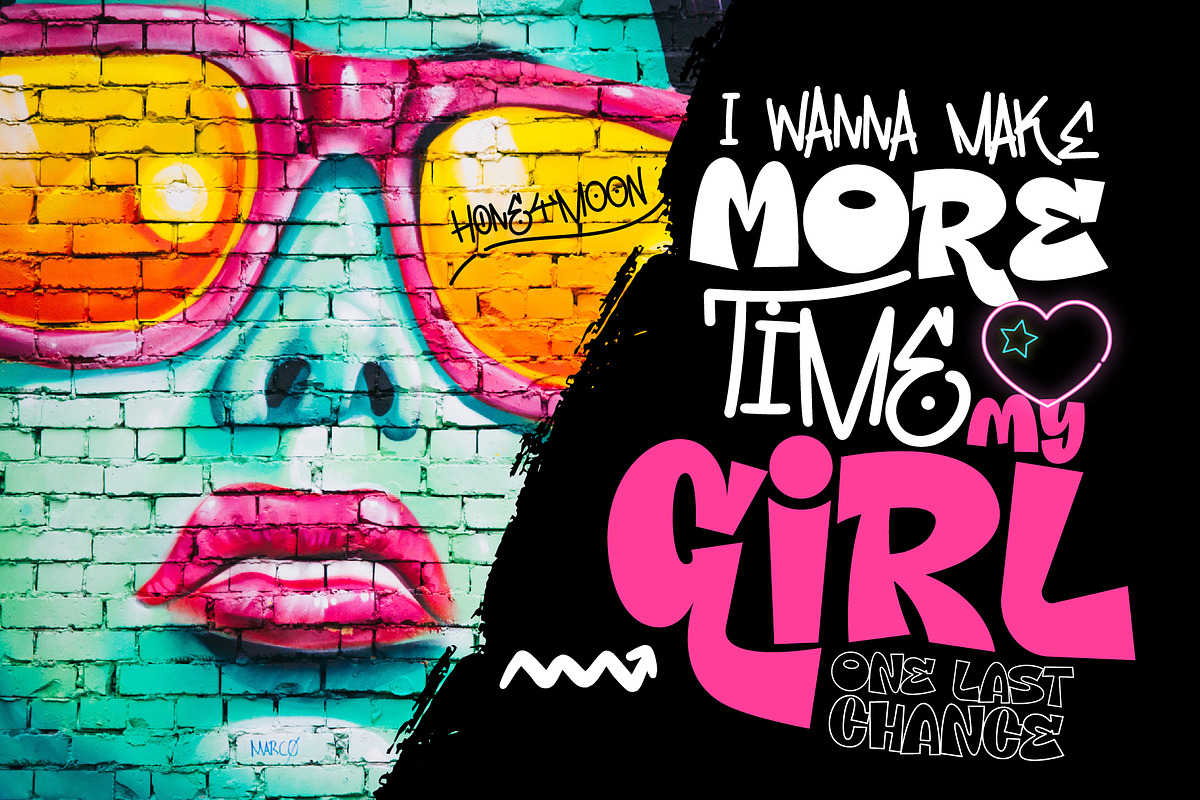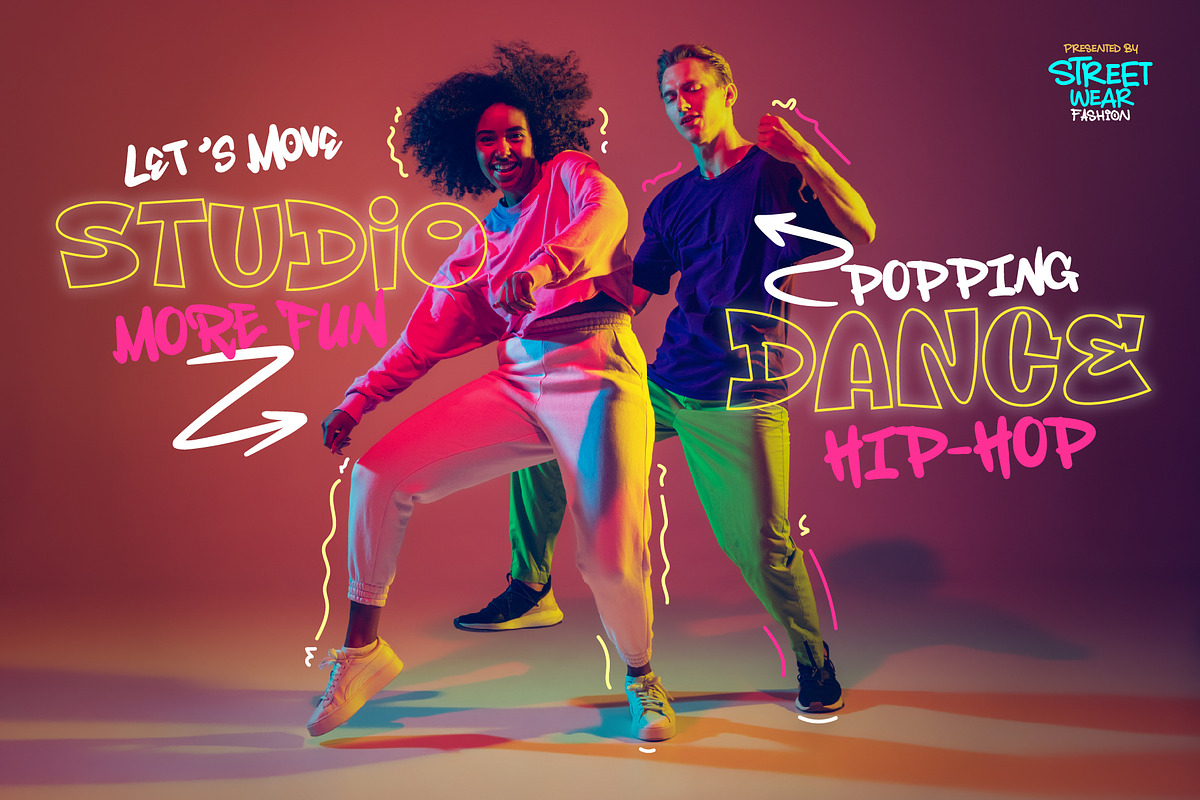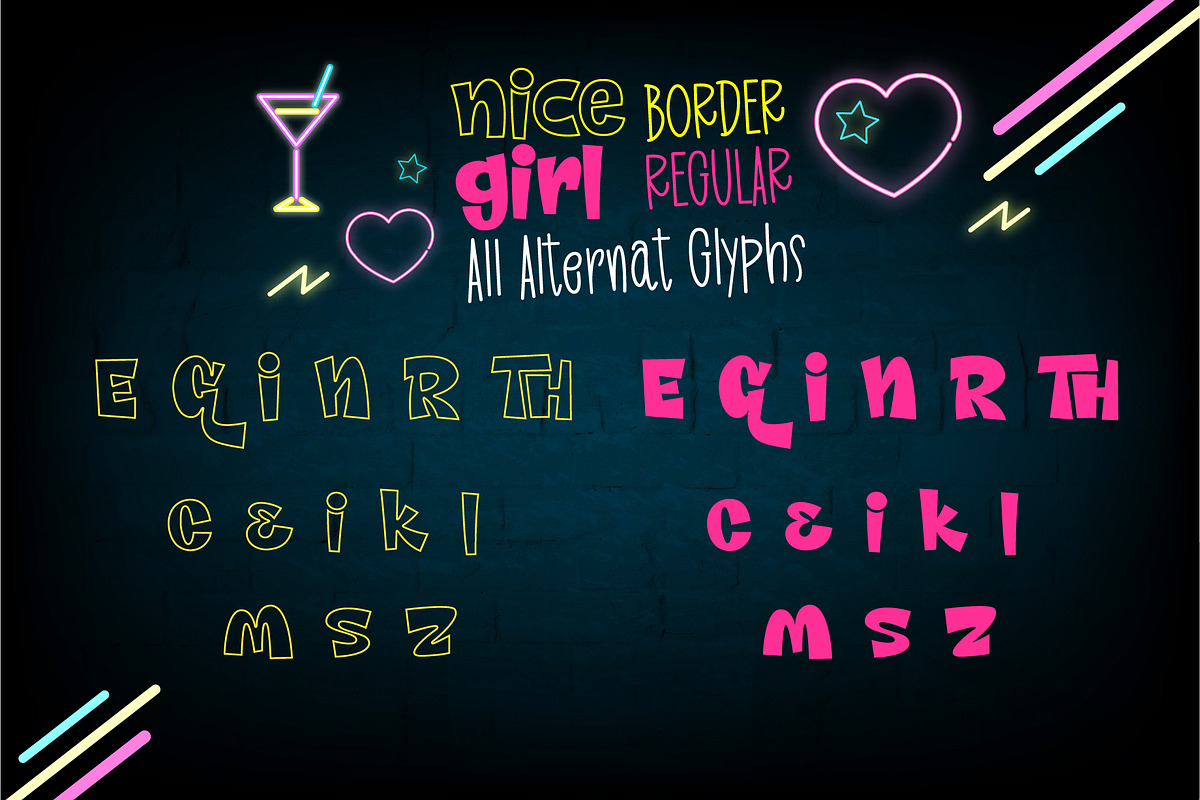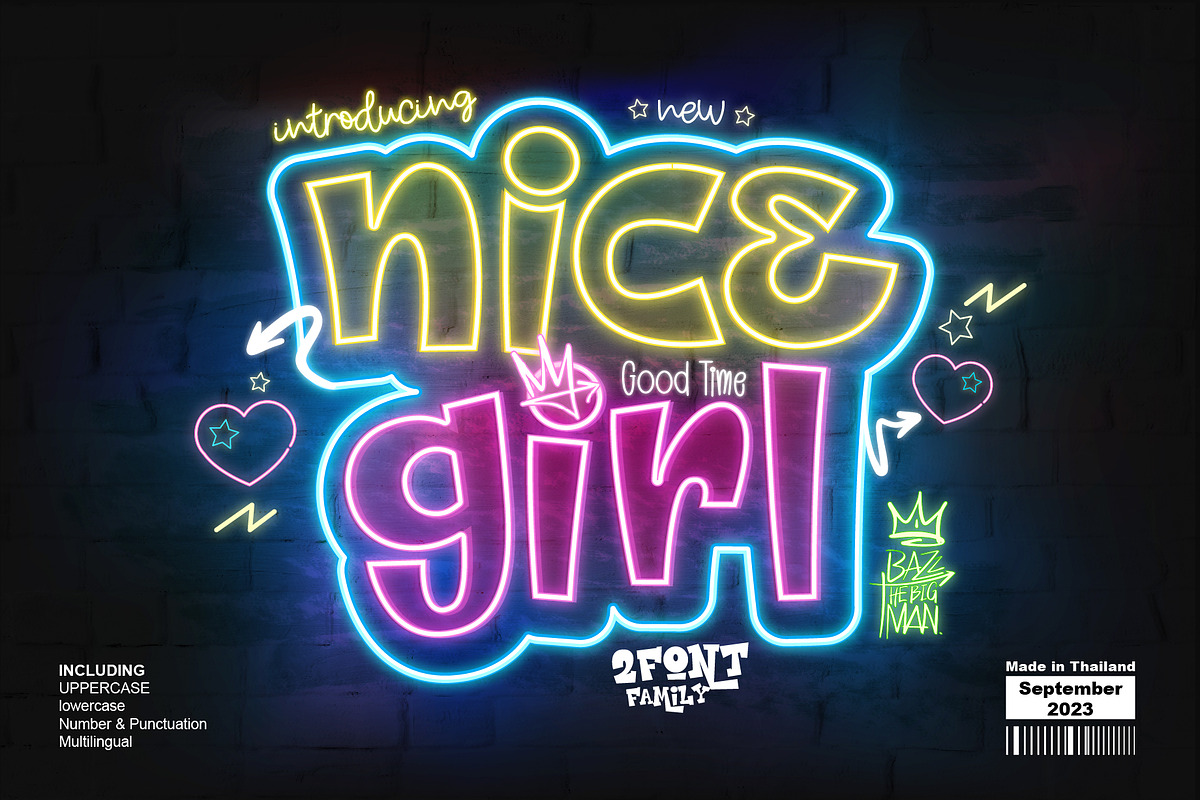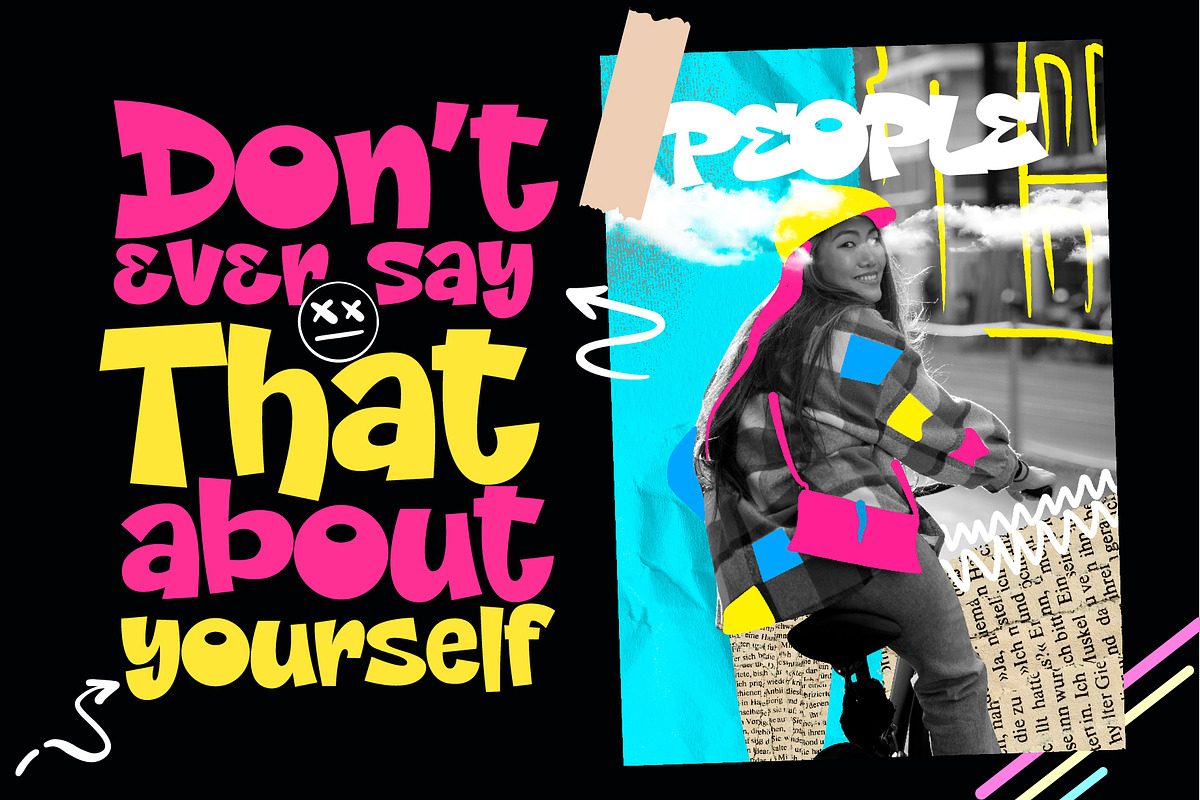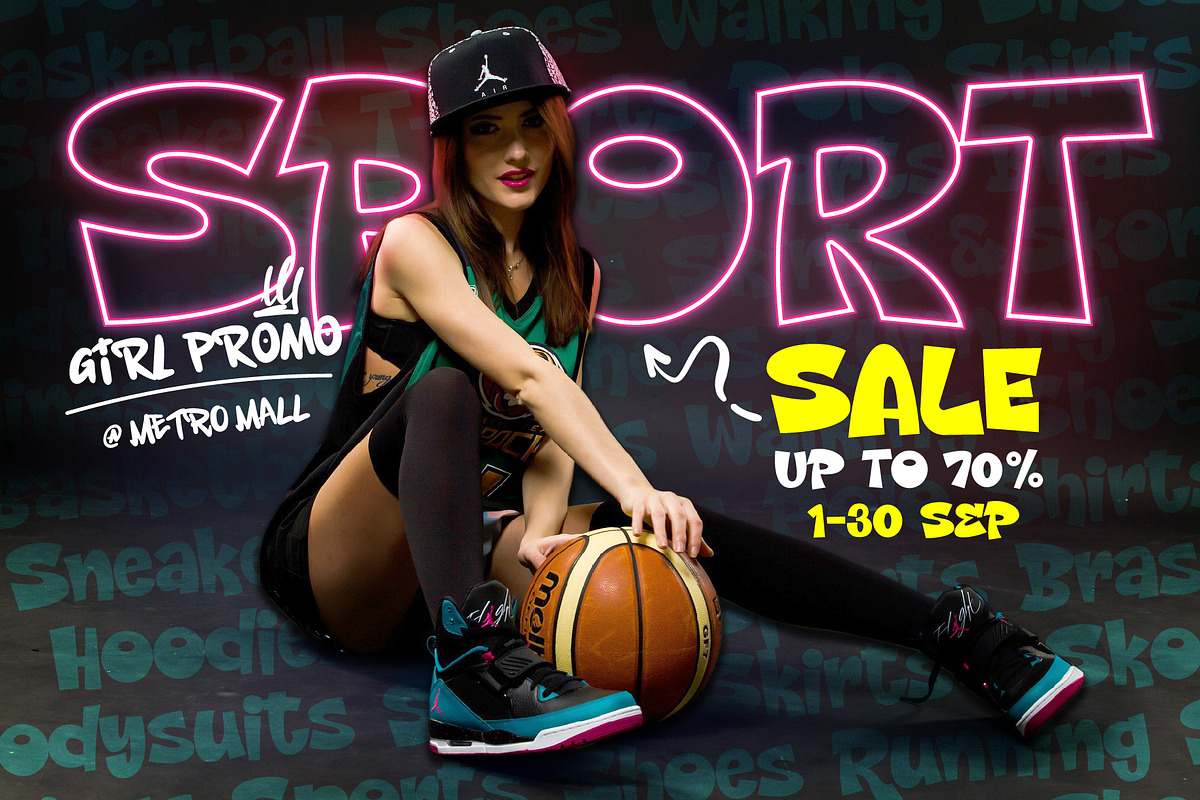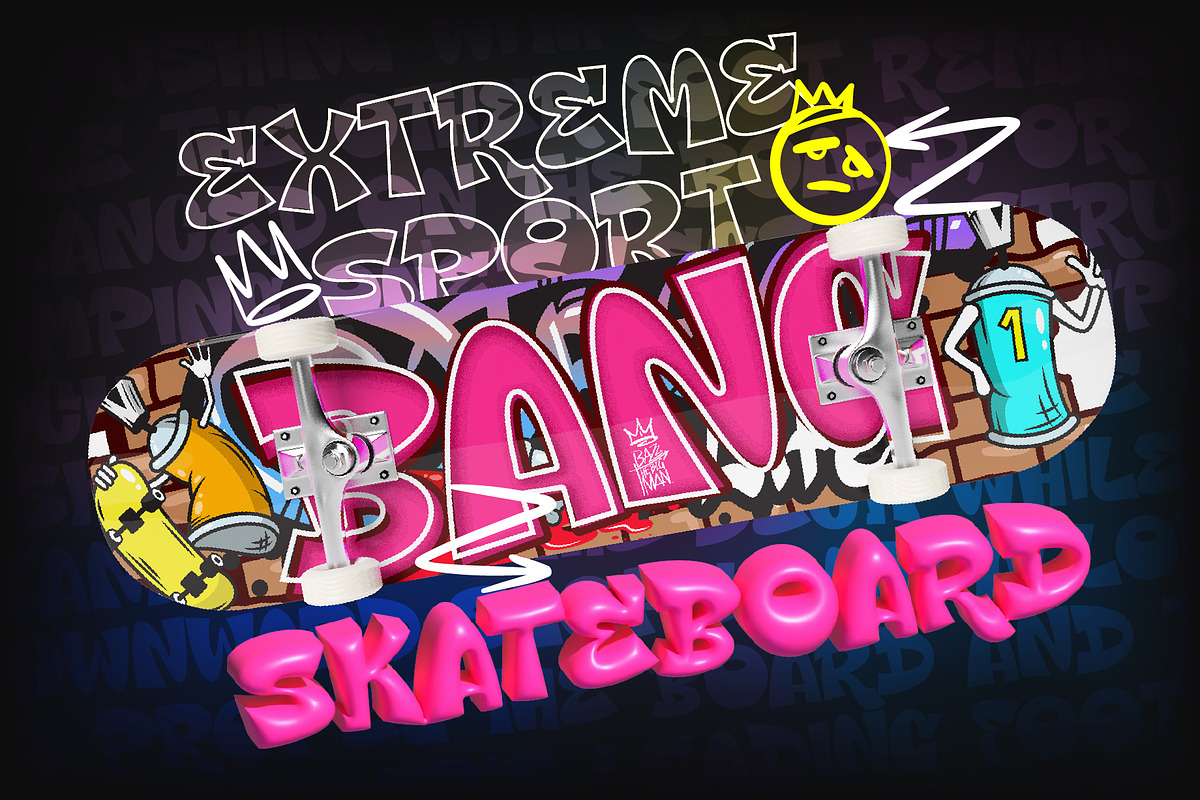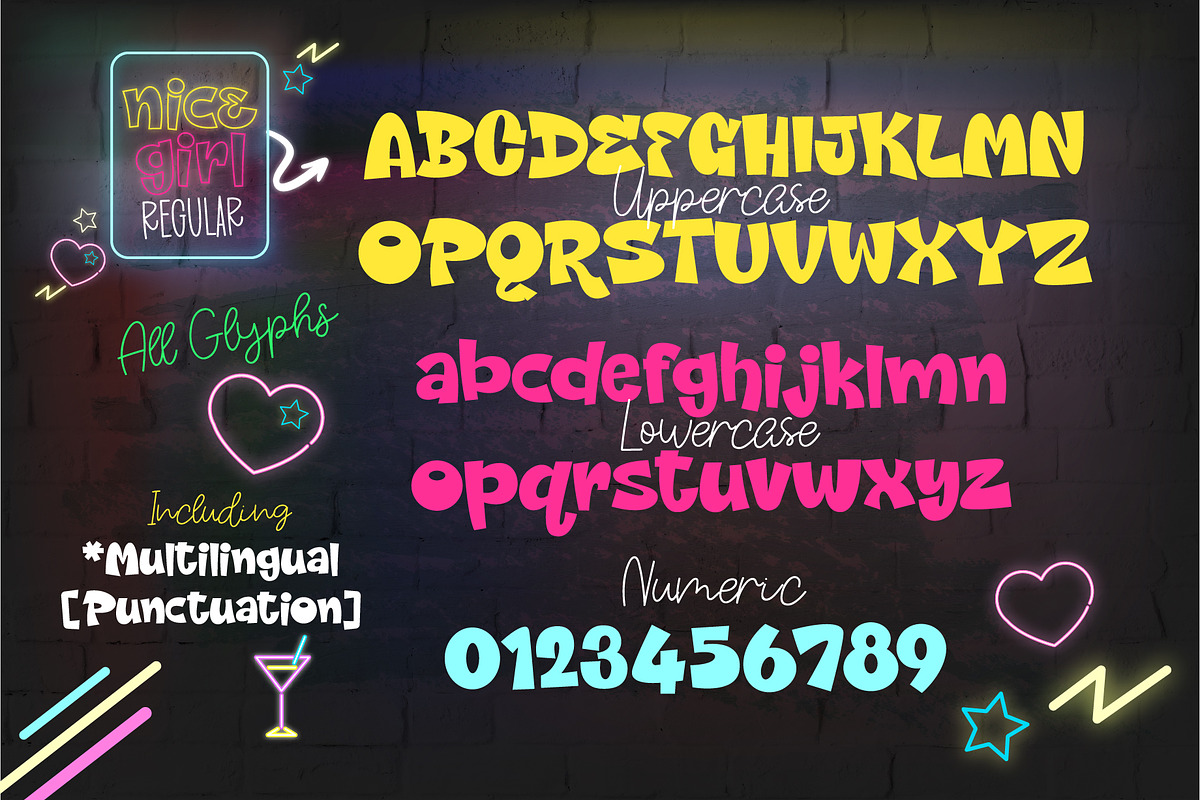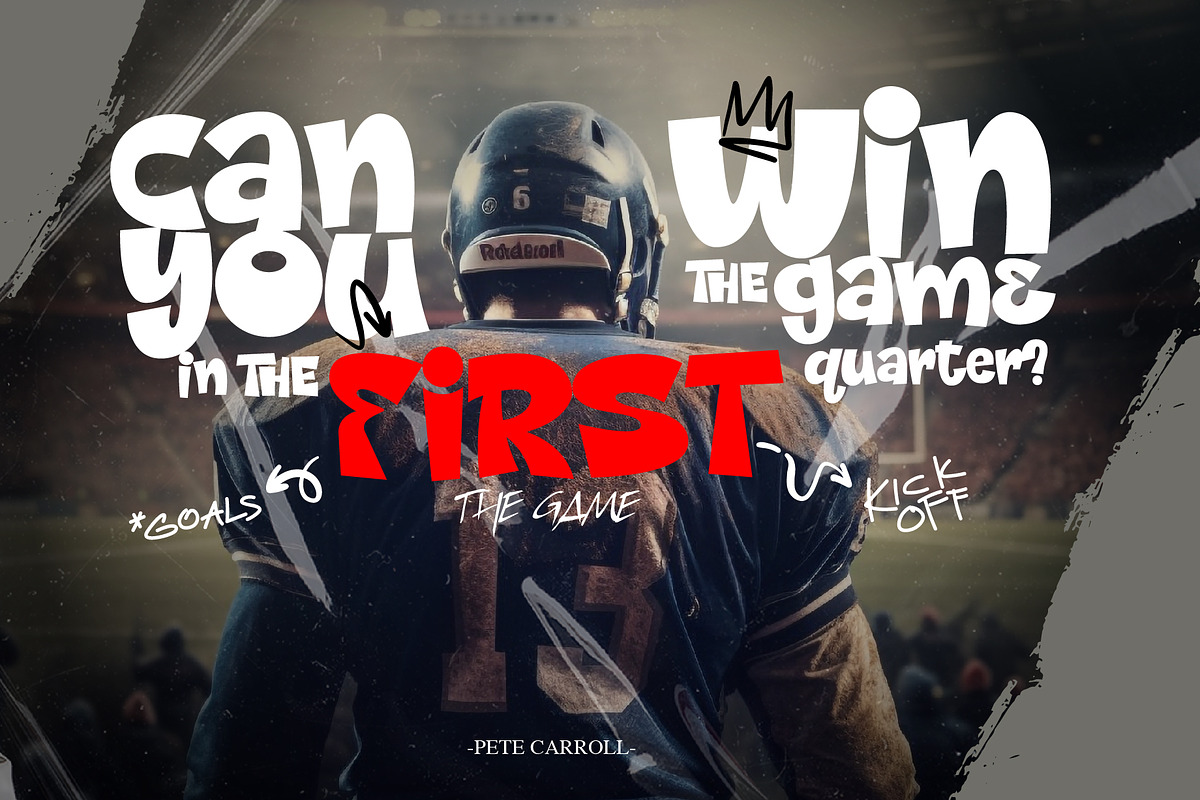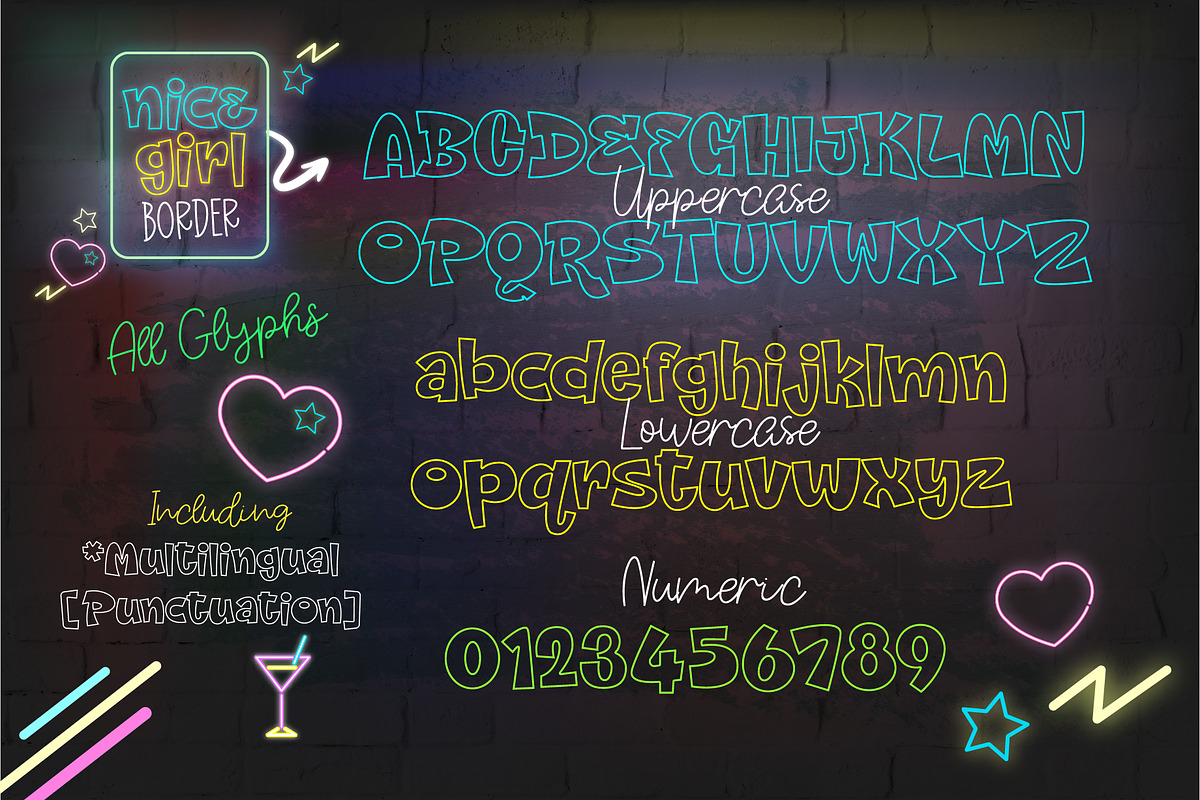
Nice Girl
Nice Girl 2 font family is an incredibly unique and bold graffiti display font. Masterfully designed to become a true favorite, this font has the potential to bring each of your creative ideas to the highest level!